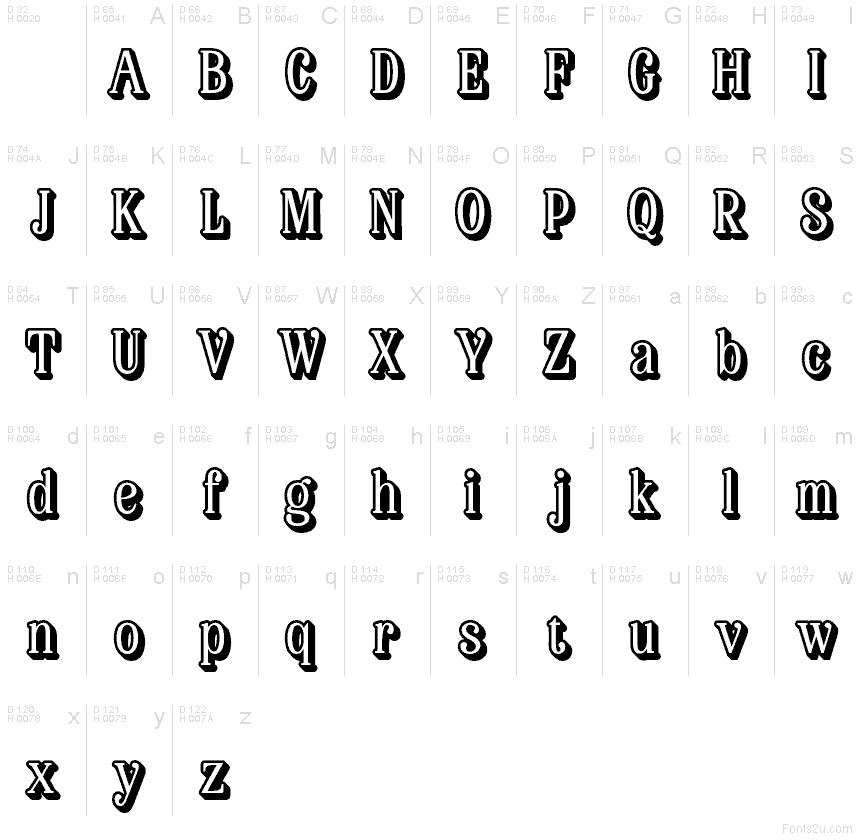
Helvine-ExtrudeRight Demo
Helvine Extrude Right font by Craft Supply Co. is a bold and condensed display font with a 3D retro serif design. Inspired by slab serifs, the letters have a strong presence in this typeface with its shadow effect and nostalgic feel. The strokes are asymmetrical while the sizes of the characters are made differently for each.